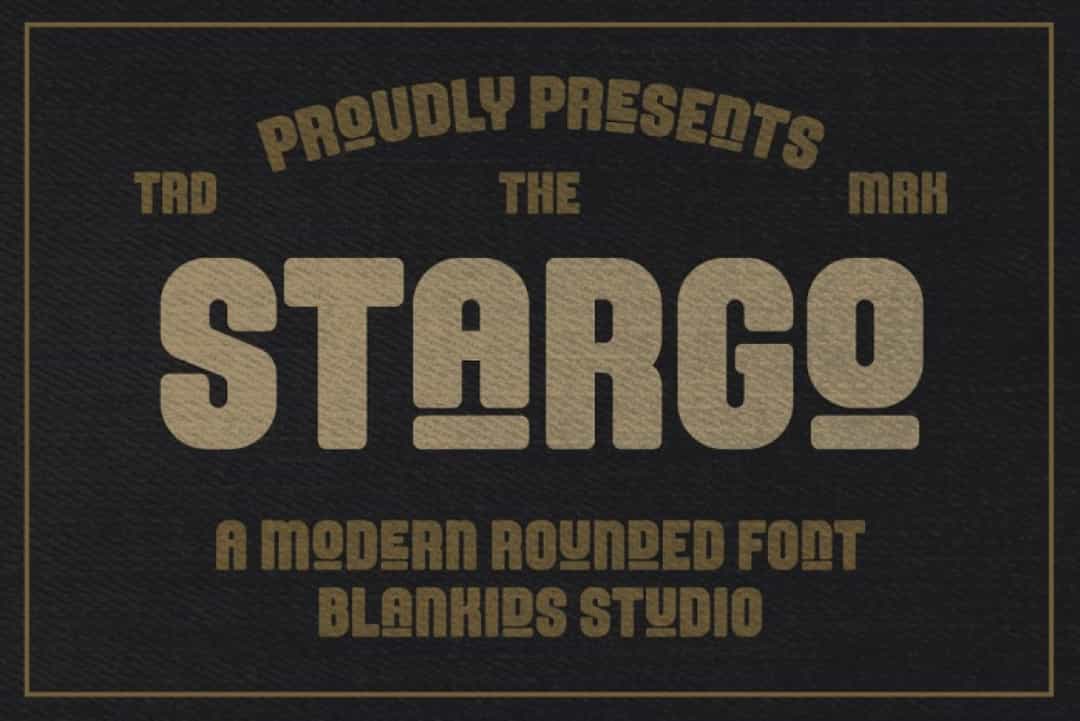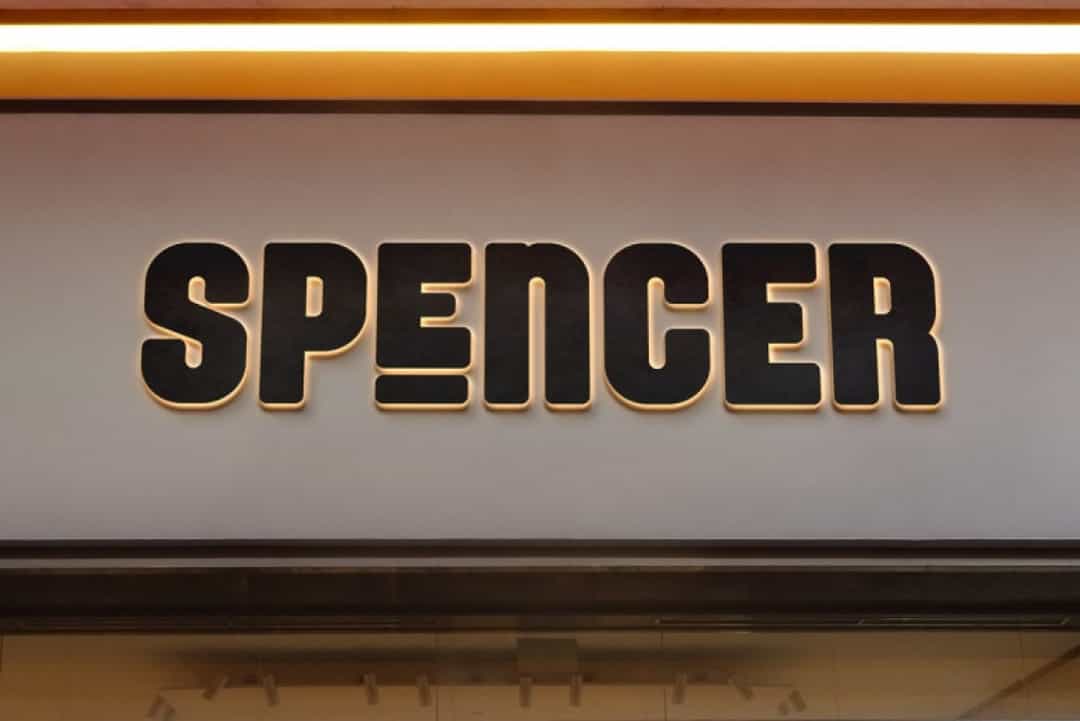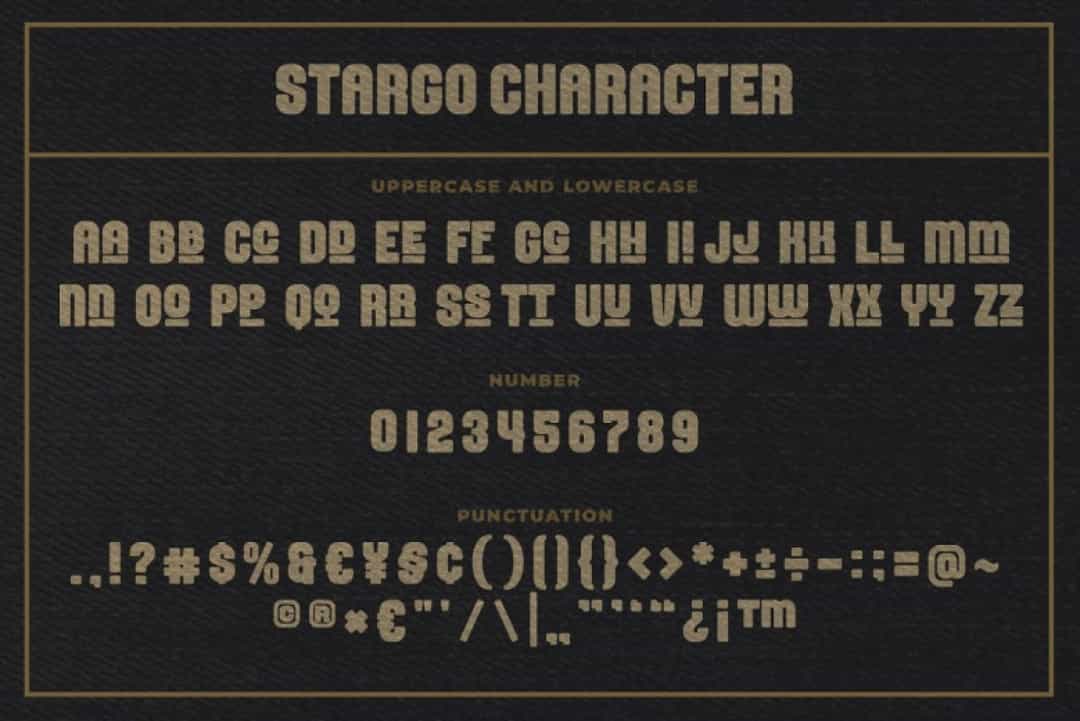
Stargo is a modern round sans serif font inspired by modern typography, perfect for creating styles that make text more enjoyable and visually stimulating – making this font great for posters, book covers, packing products, logotypes, etc.